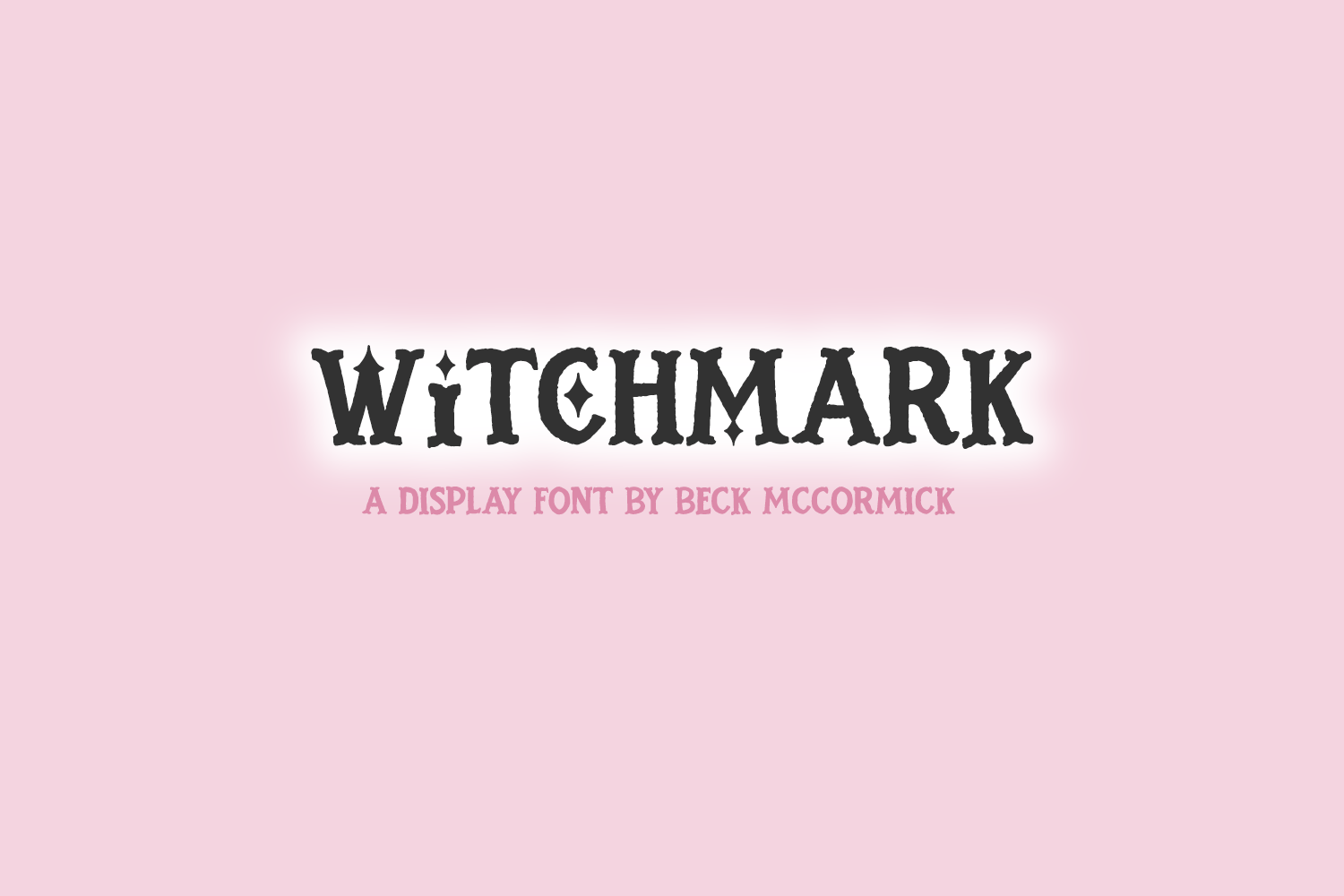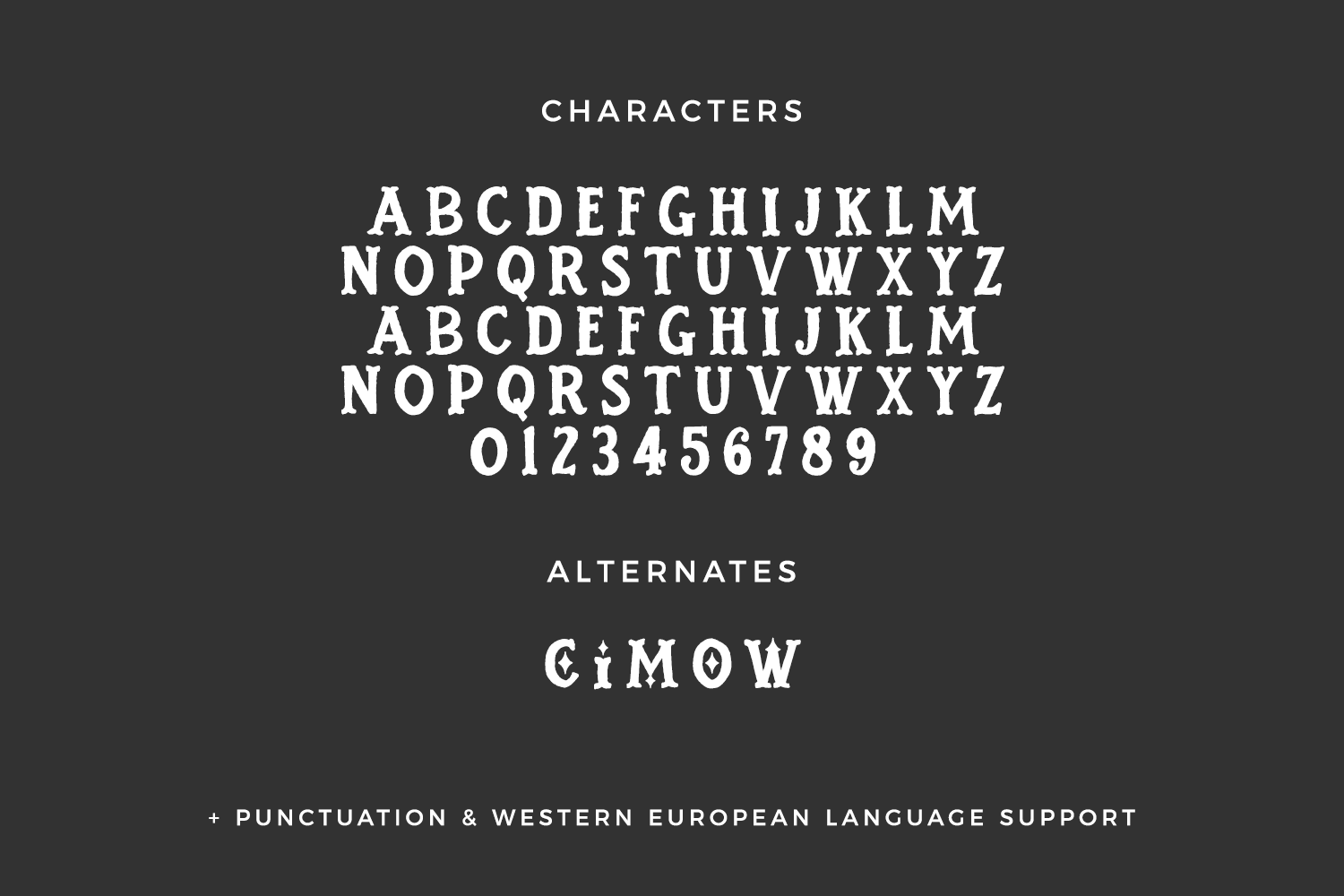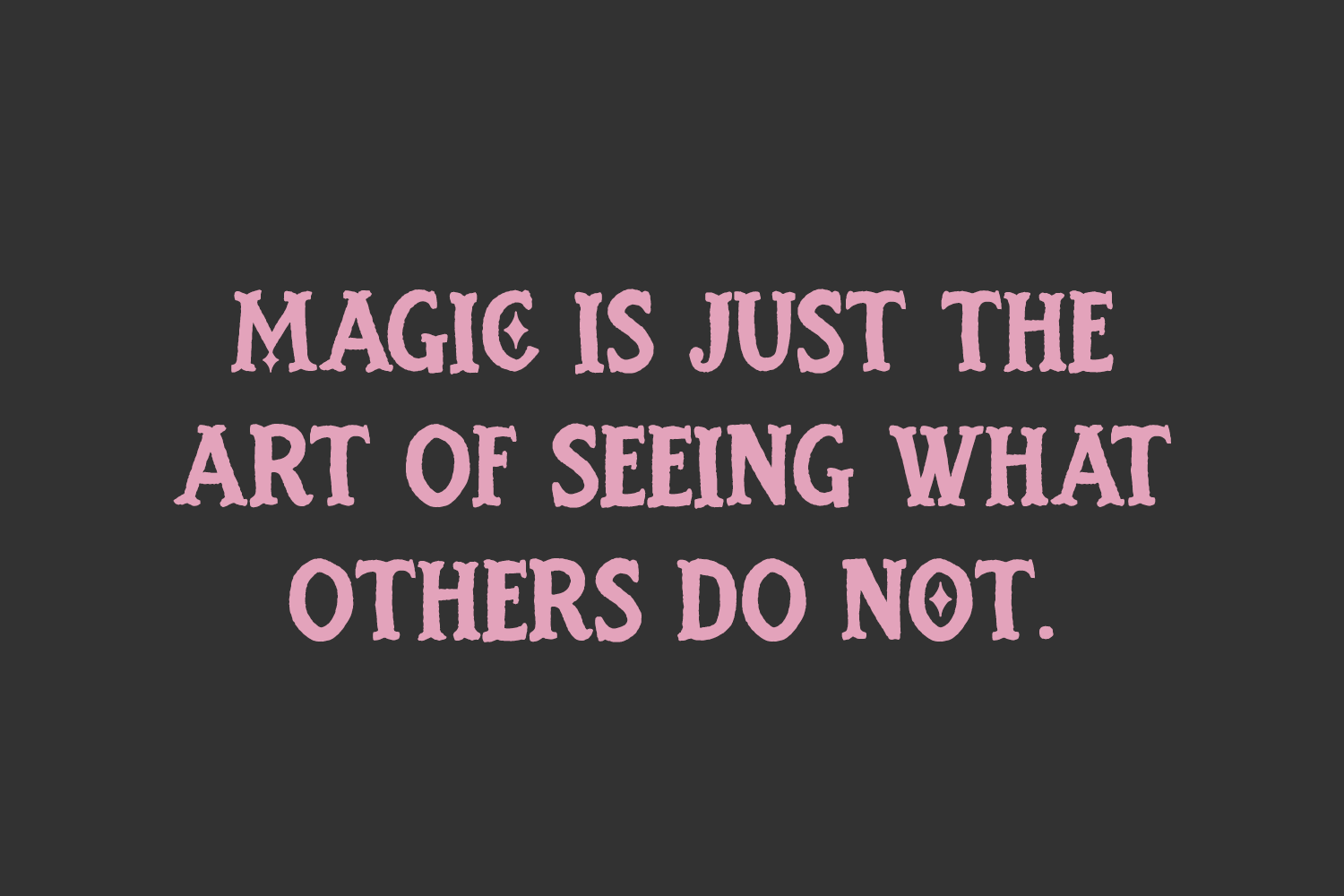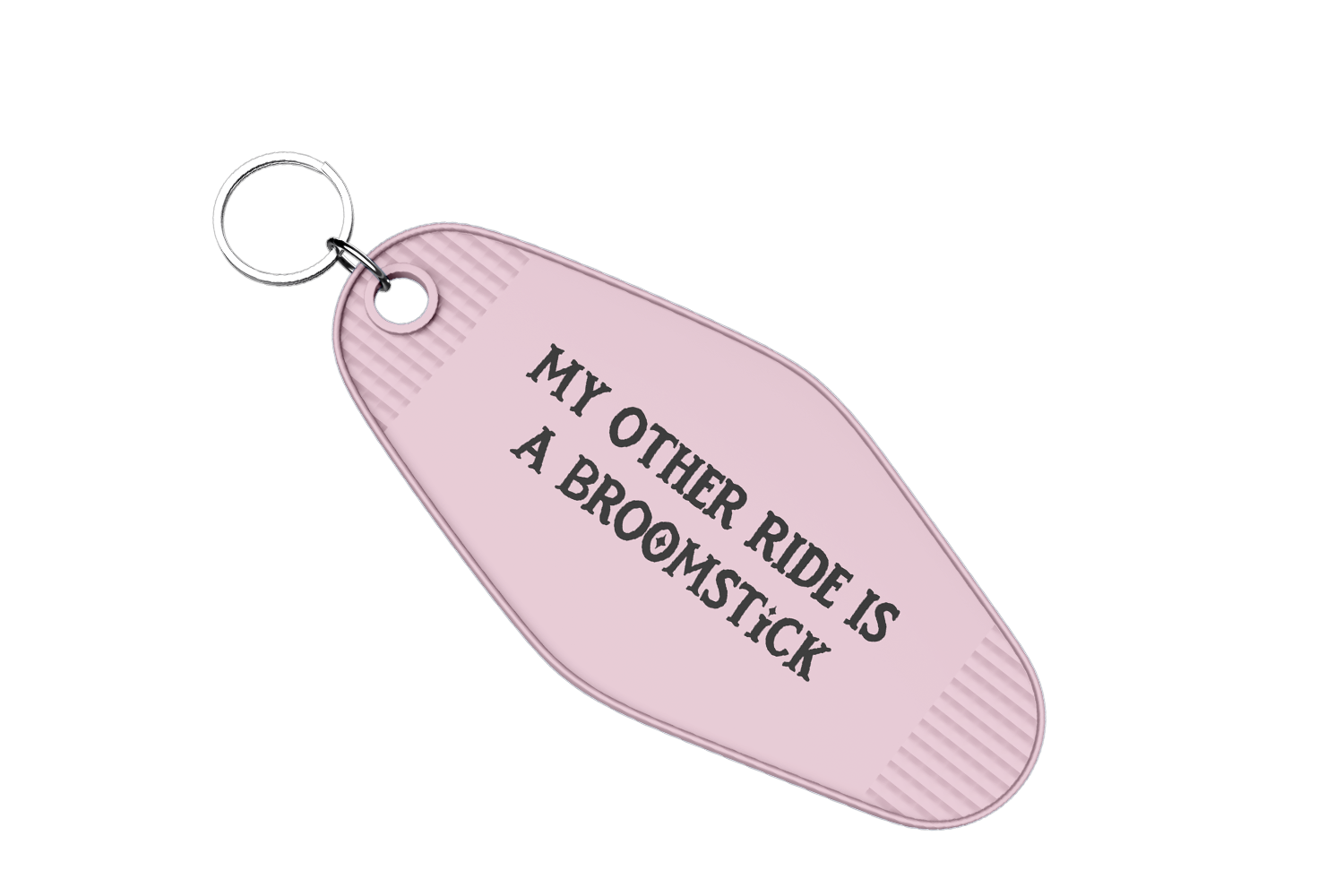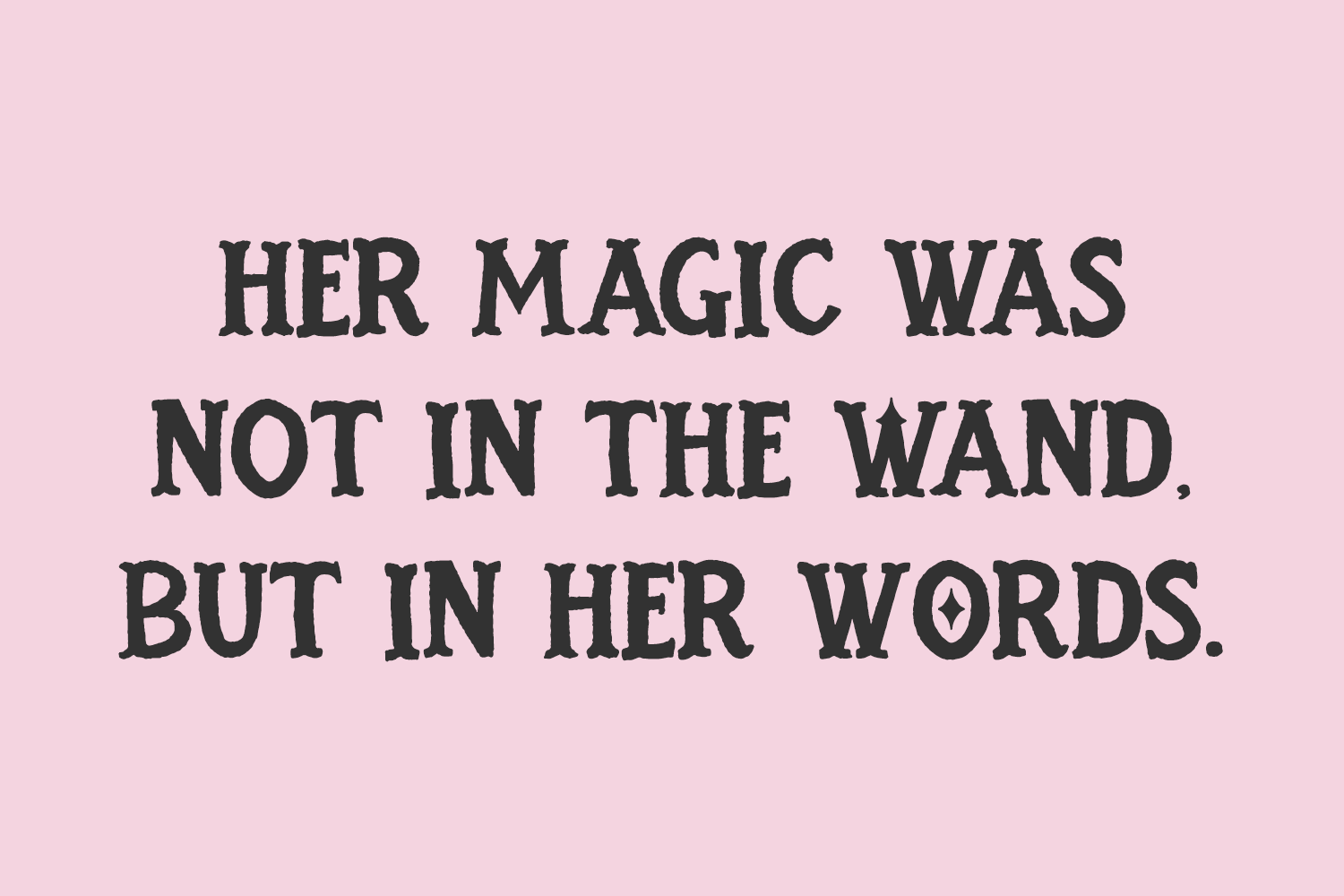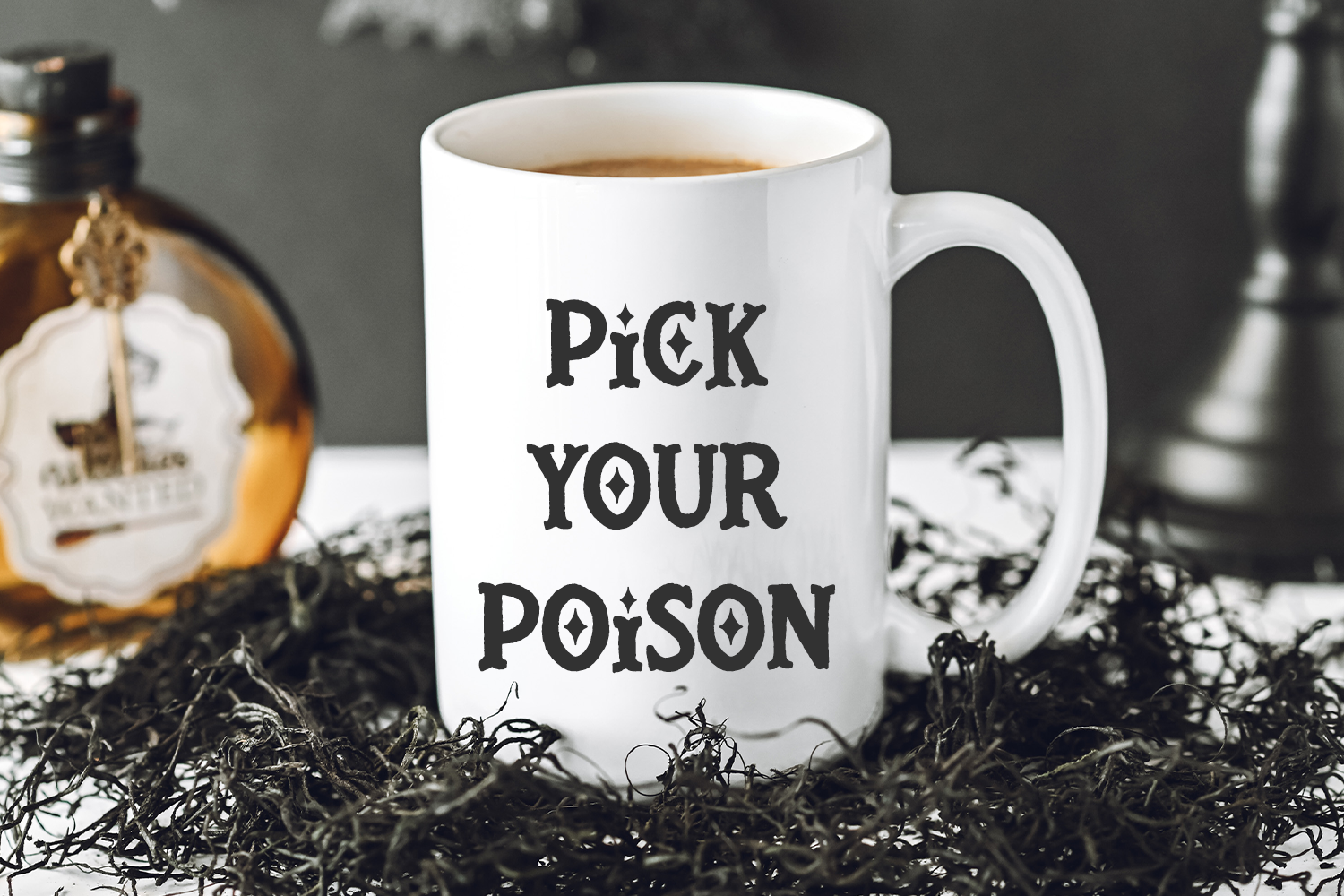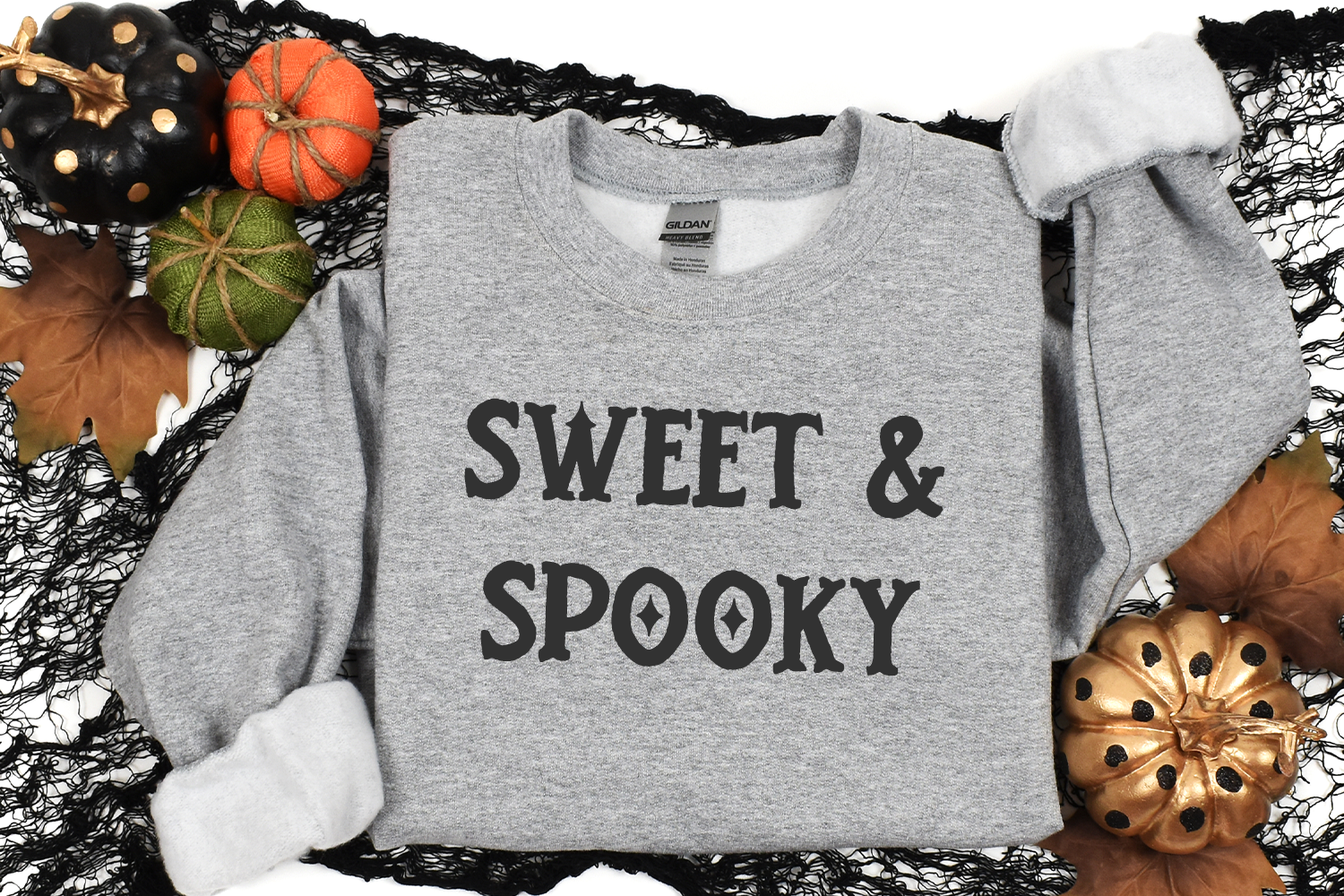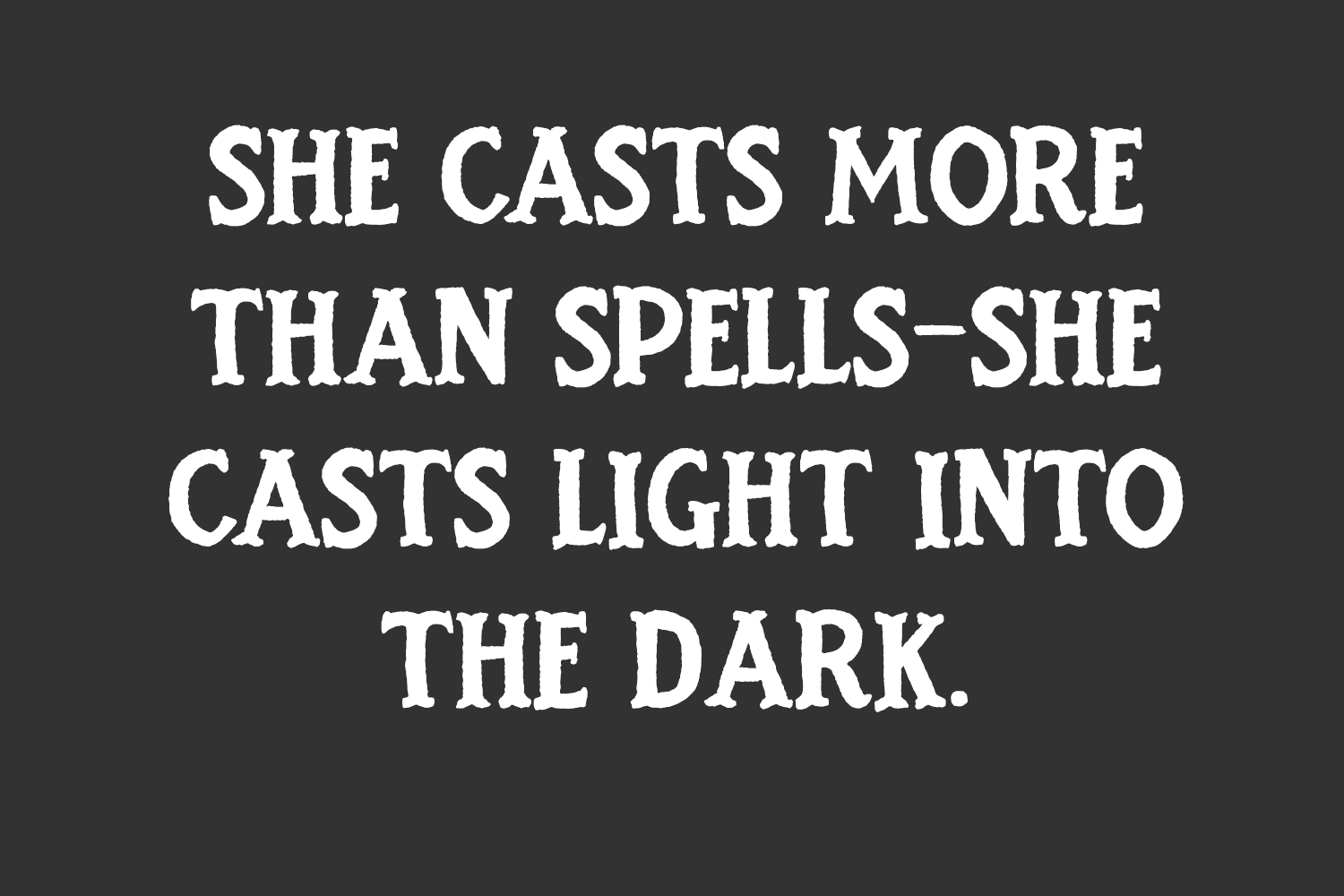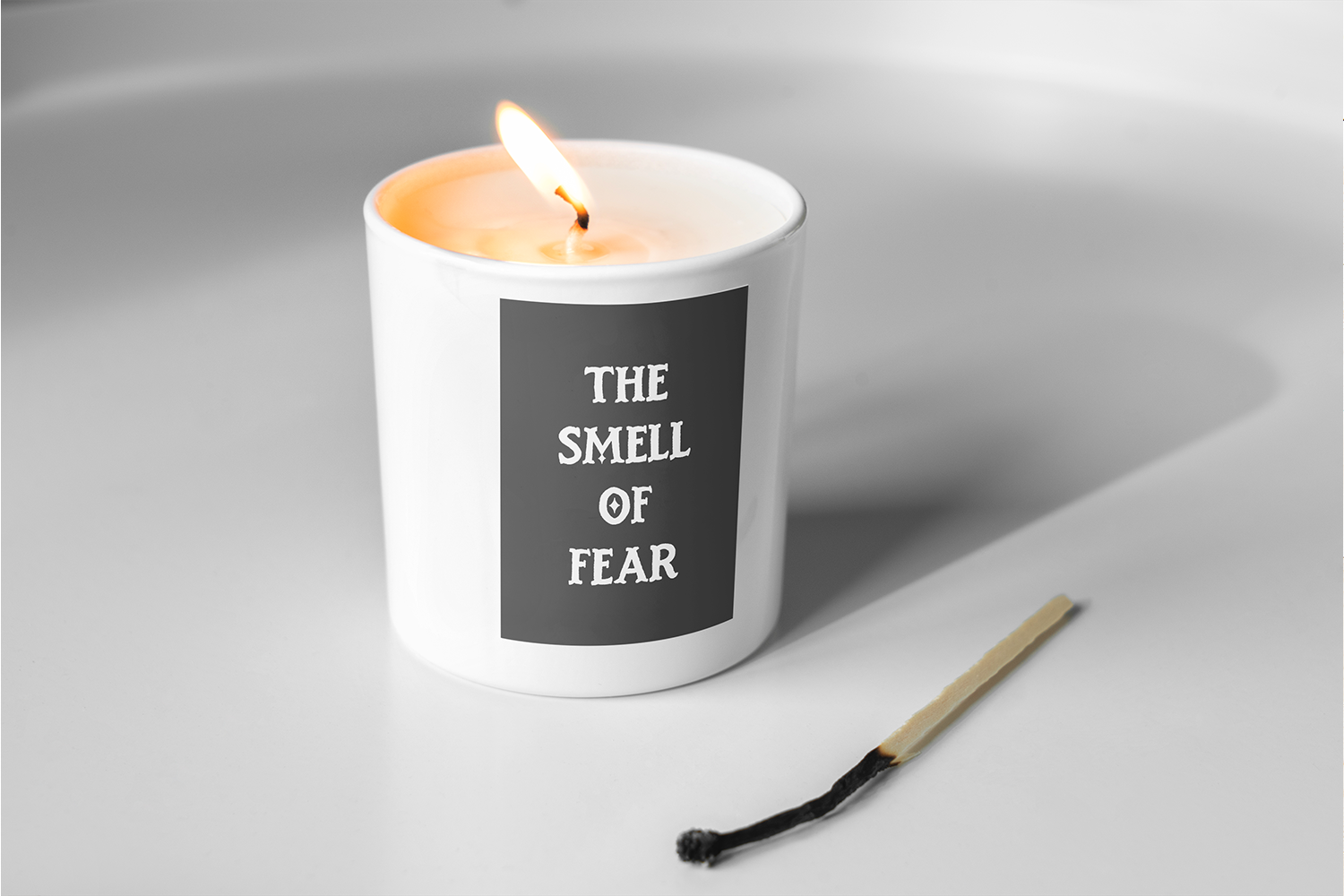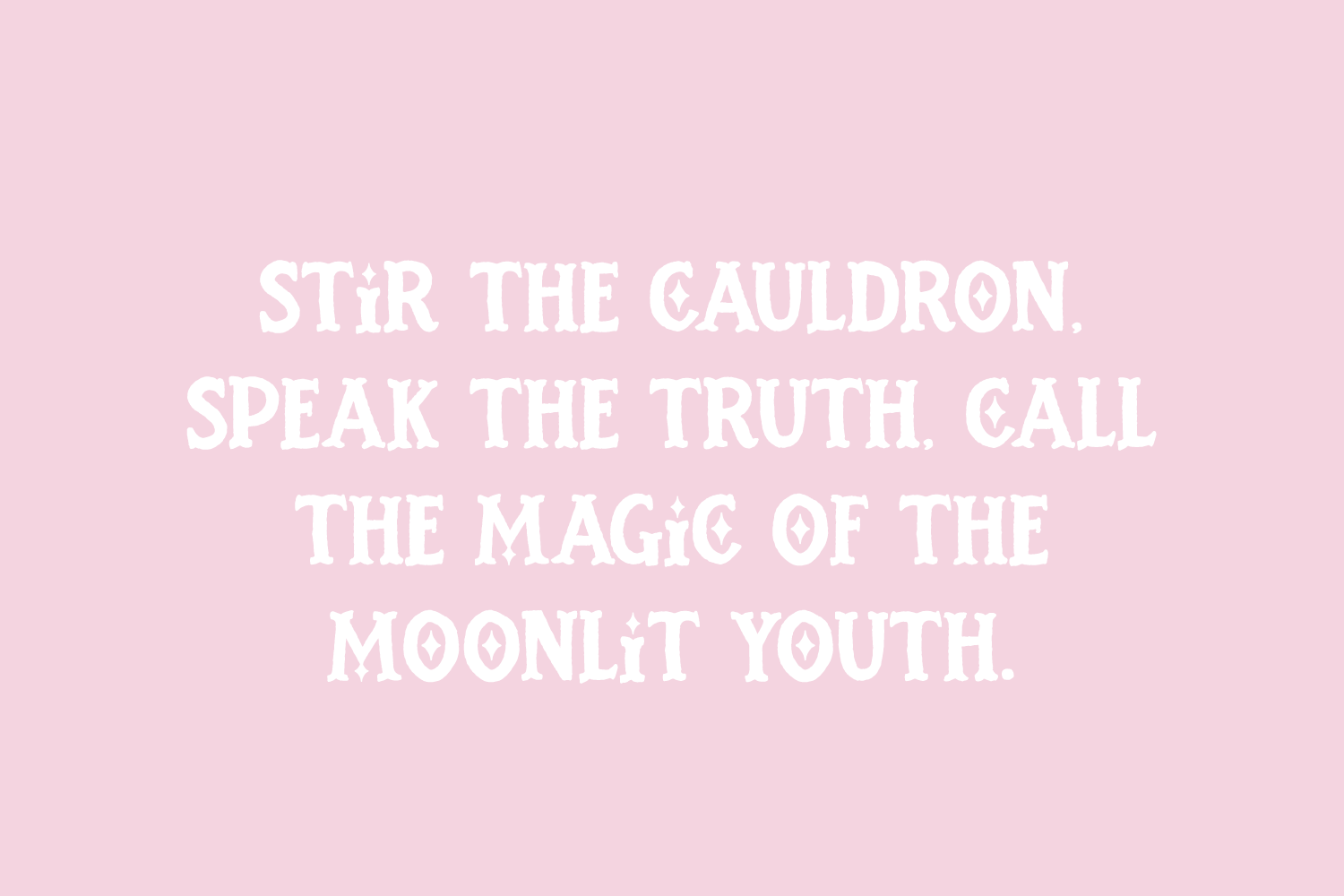
– full upper + lowercase characters (Witchmark is all-caps, so uppercase characters are programmed into lowercase spots for ease of use.)
– 5 alternates
– Western European language support – English, French, Spanish, Portuguese (Brazil), Portuguese (Portugal), Italian, German (Germany), German (Austria), Dutch, Danish, Swedish, Norwegian (BokmÃ¥l and Nynorsk), Finnish, Icelandic, Irish, Welsh